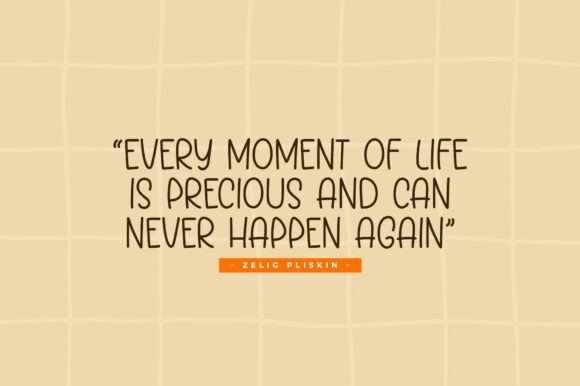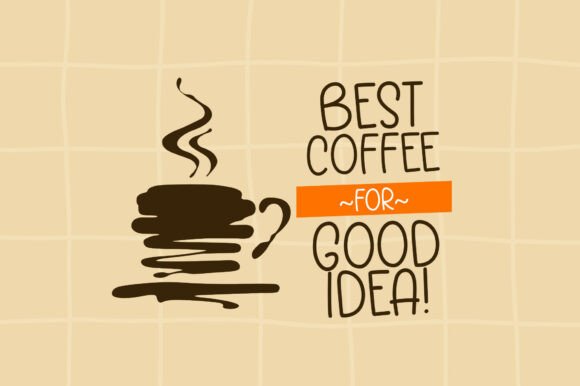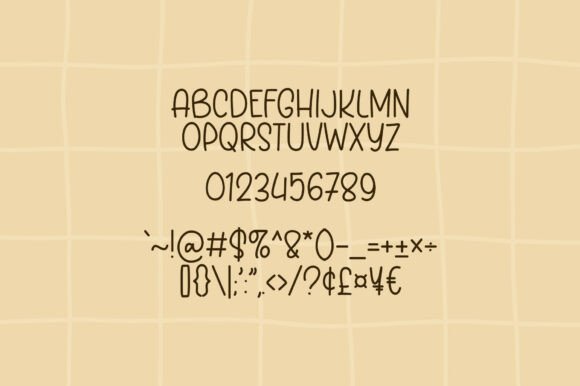
Introducing Bright One Font: The Perfect Handwritten Font for Your Creative Projects
Are you a designer or crafter looking for a font that can add a touch of modernity and cuteness to your projects? Look no further than Bright One Font! This beautiful handwritten font is perfect for a wide range of applications, from posters and logos to magazines, book covers, banners, and more. In this article, we’ll take a closer look at Bright One Font and explore its features, benefits, and uses.
What is Bright One Font?
Bright One Font is a modern and cute handwritten font that is designed to add a personal touch to your designs. Its unique and elegant style makes it perfect for creating eye-catching and engaging designs that stand out from the crowd. Whether you’re working on a personal project or a client’s, Bright One Font is sure to impress.
Features of Bright One Font
So, what makes Bright One Font so special? Here are just a few of its key features:
- Modern and Cute Style: Bright One Font has a fresh and contemporary look that’s perfect for designers and crafters who want to create modern and stylish designs.
- Handwritten Style: The font’s handwritten style gives it a personal and unique touch that’s perfect for adding a human element to your designs.
- Highly Versatile: Bright One Font can be used for a wide range of projects, from posters and logos to magazines, book covers, and more.
- Easily Readable: The font is highly legible, making it perfect for use in both print and digital applications.
Benefits of Using Bright One Font
So, why should you choose Bright One Font for your next project? Here are just a few of the benefits of using this amazing font:
- Adds a Personal Touch: Bright One Font’s handwritten style adds a personal touch to your designs, making them more relatable and engaging.
- Perfect for Branding: The font’s modern and stylish look makes it perfect for use in branding and advertising applications.
- Increases Readability: Bright One Font’s high legibility makes it easy to read, even at small sizes.
- Versatile: The font can be used for a wide range of projects, making it a great addition to any designer’s toolkit.
Uses of Bright One Font
So, what can you use Bright One Font for? The possibilities are endless! Here are just a few ideas to get you started:
- Posters: Use Bright One Font to create eye-catching posters that grab attention and communicate your message.
- Logos: The font’s modern and stylish look makes it perfect for use in logos and branding applications.
- Magazines: Bright One Font is a great choice for magazine headlines, subheadlines, and body copy.
- Book Covers: The font’s elegant style makes it perfect for use in book covers and title pages.
- Banners: Use Bright One Font to create eye-catching banners that grab attention and drive engagement.
In conclusion, Bright One Font is a modern and cute handwritten font that’s perfect for designers and crafters who want to add a personal touch to their designs. Its highly versatile and easily readable style makes it perfect for use in a wide range of applications, from posters and logos to magazines, book covers, and more. So why wait? Download Bright One Font today and start creating stunning designs that stand out from the crowd!